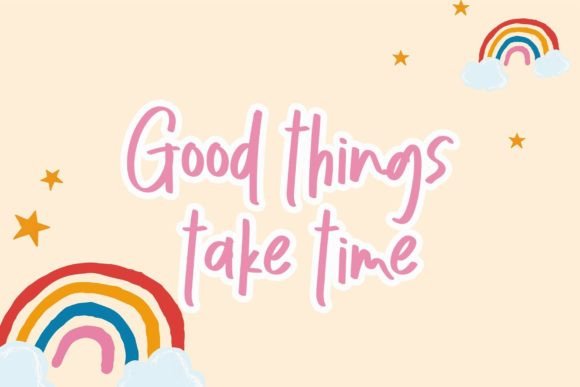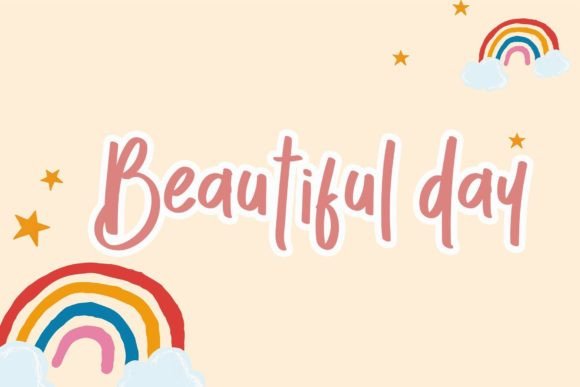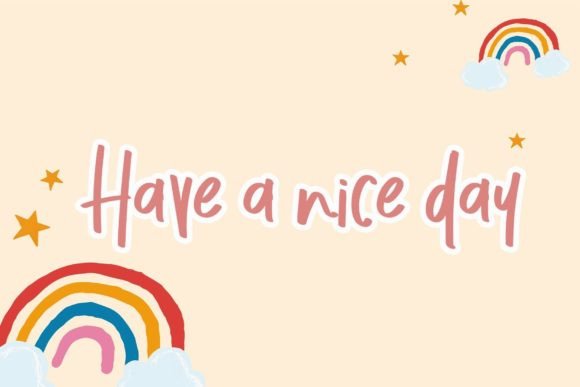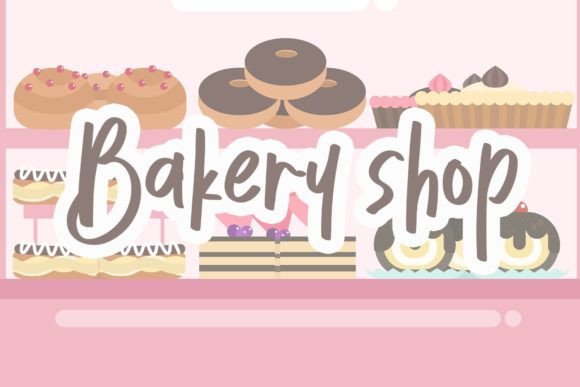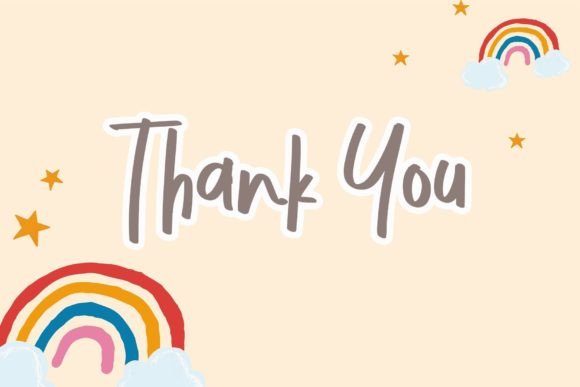
Rainbow Font
About Rainbow Font
“Rainbow” is a delightful and friendly handwritten font designed to infuse a sense of fun and warmth into your creative projects. Its playful and approachable style makes it an excellent choice for a variety of design applications, allowing you to transform ordinary ideas into standout pieces. Let the unique charm of “Rainbow” inspire you as you embark on creating lovely and engaging designs.
The fun and friendly nature of “Rainbow” lends itself well to a wide range of projects. Whether you’re working on digital graphics, print materials, social media posts, or any other creative endeavor, this font adds a touch of whimsy that captivates attention and resonates with a diverse audience.
The handwritten quality of “Rainbow” imparts a personal and authentic feel to your designs. Each character is crafted with care, creating an endearing and charming visual language. This makes “Rainbow” particularly suitable for projects where a friendly and approachable tone is desired, creating a connection with your audience.
Feel free to explore various design ideas and let the unique charm of “Rainbow” guide your creativity. Whether you’re creating invitations, greeting cards, posters, or branding materials, this font can adapt to different themes and styles, adding a playful and lively element to your work.
Incorporate “Rainbow” into your design toolkit, and observe how it transforms your concepts into standout pieces. Its friendly demeanor invites a positive and joyful atmosphere, making it a perfect choice for projects that aim to evoke a sense of happiness and lightheartedness.
In summary, “Rainbow” is not just a font; it’s a creative tool that injects a fun and friendly energy into your designs. Let its unique charm inspire you, and create lovely designs that leave a lasting and positive impression on your audience. Embrace the playful spirit of “Rainbow” to turn your design ideas into true standouts.